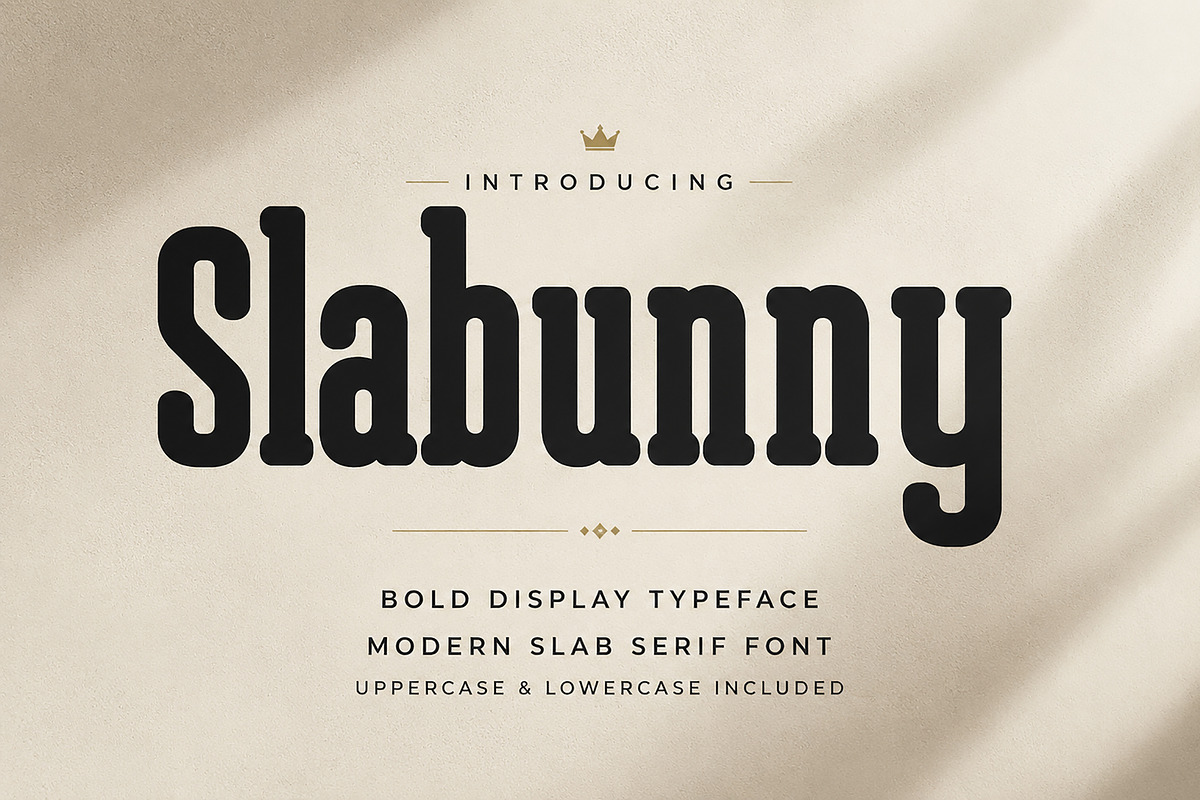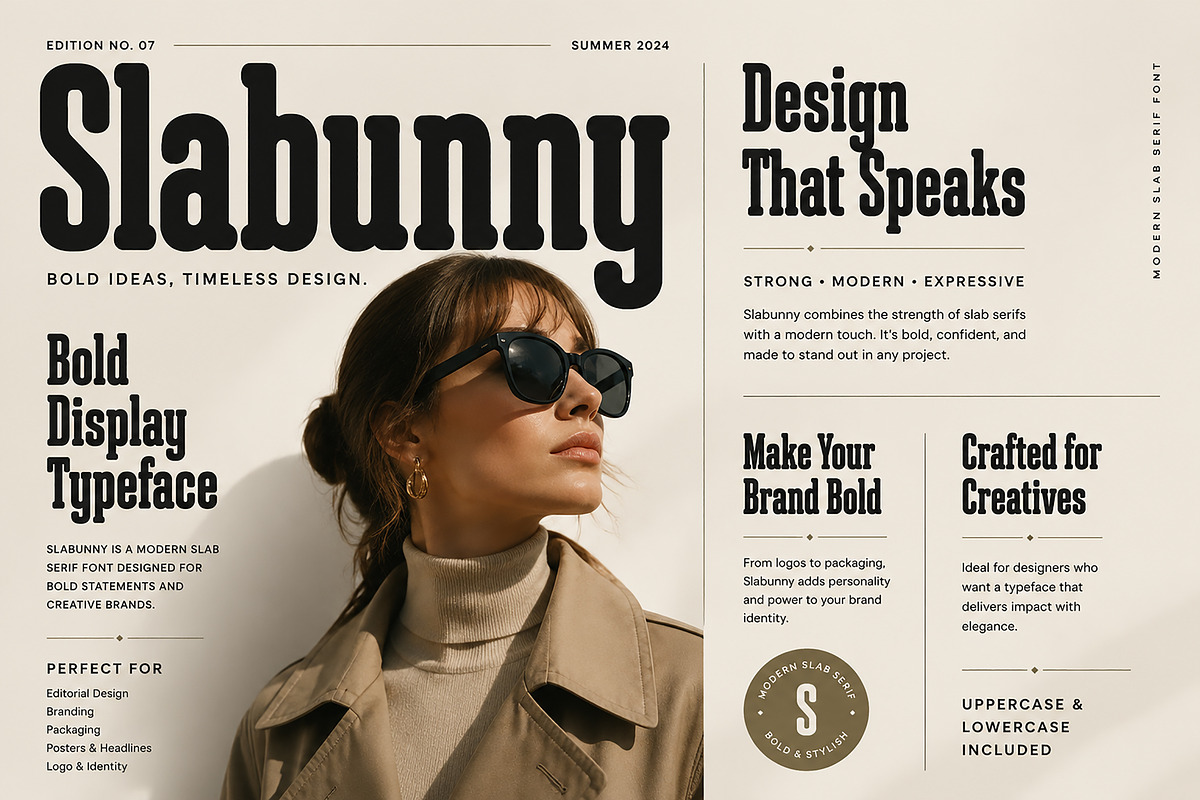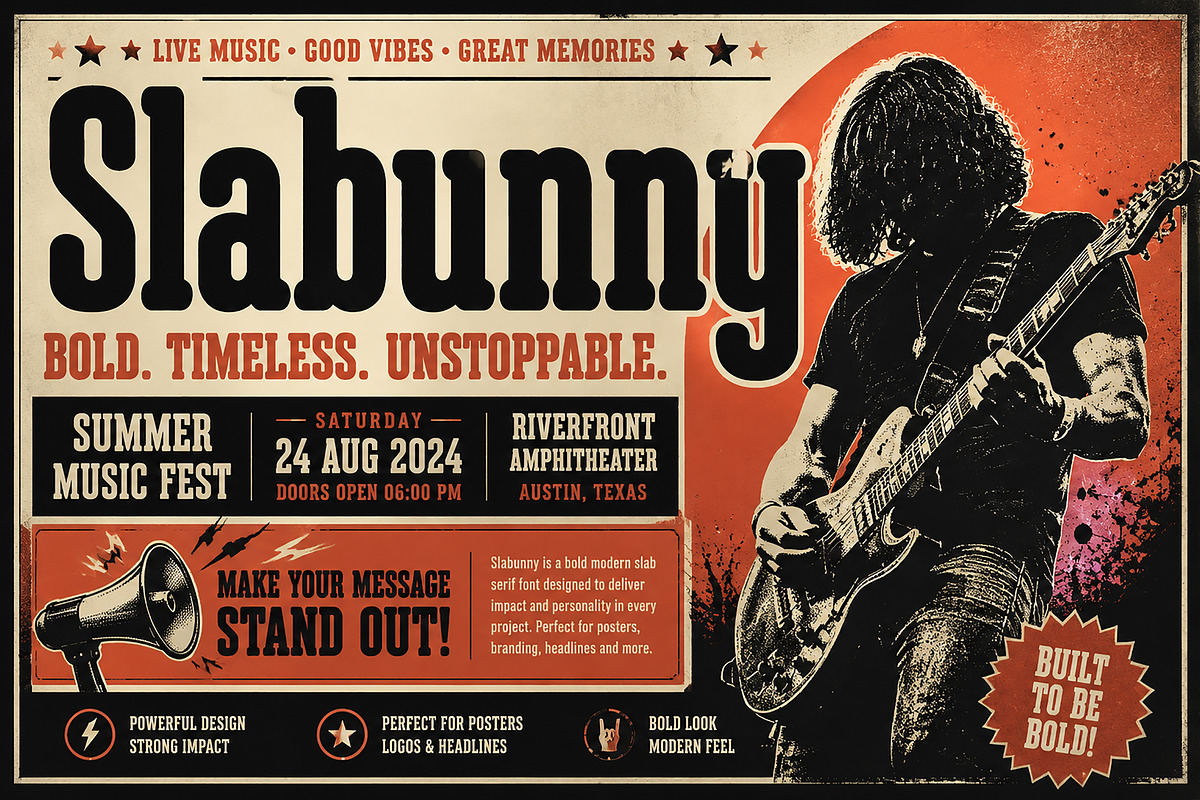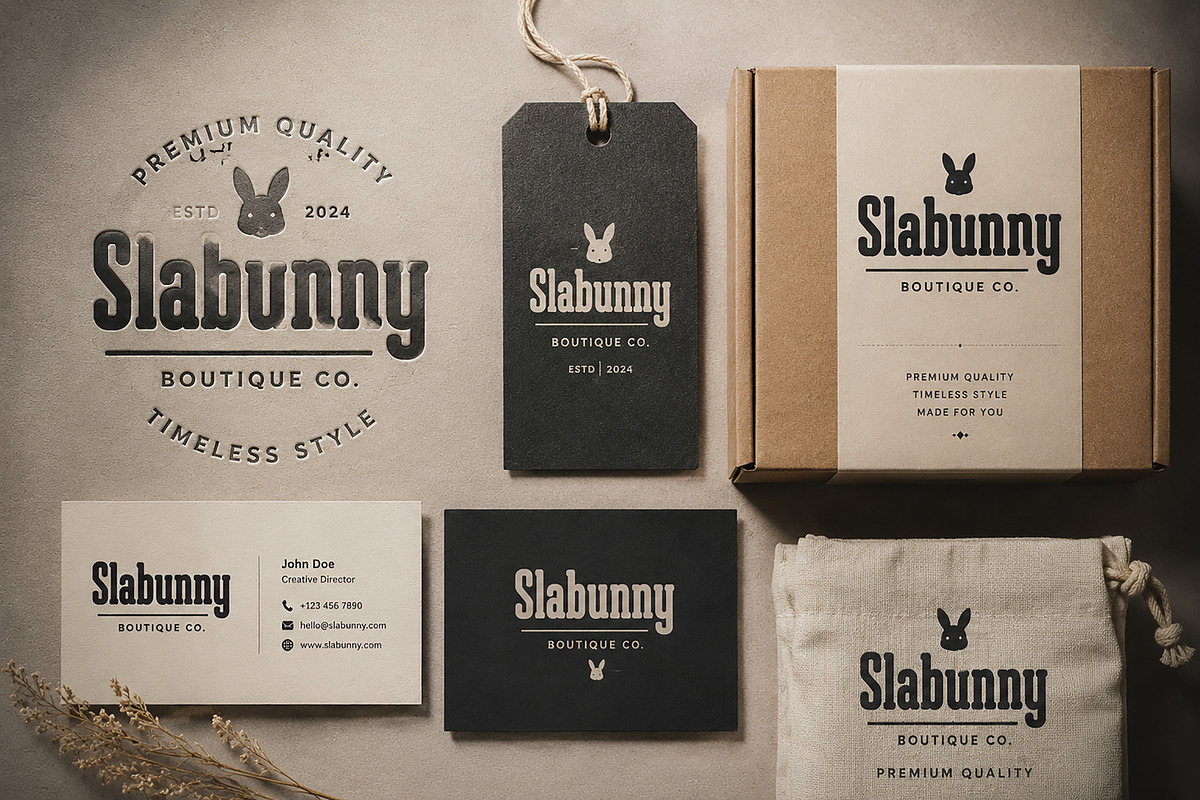
Slabunny
Slabunny – Bold Modern Slab Serif Display Font
Slabunny is a bold and stylish slab serif display font designed to bring a strong visual impact to your creative projects. Featuring thick strokes, rounded slab shapes, and a unique contemporary personality, Slabunny is perfect for designs that need a confident and memorable typographic style.
With its powerful display presence and excellent readability, Slabunny works beautifully for branding, logos, posters, packaging, editorial layouts, headlines, advertising, merchandise, and creative identity projects.
Designed for designers who love bold typography with a modern vintage touch, Slabunny adds character, strength, and premium style to every design.
• Logo Design
• Brand Identity
• Posters
• Packaging Design
• Magazine Headlines
• Editorial Design
• Advertising Campaigns
• Product Labels
• Social Media Graphics
• Merchandise Design
• Creative Projects
✔ Bold Slab Serif Display Style
✔ Strong & Unique Letter Shapes
✔ Modern Vintage Inspired Look
✔ High Impact Typography
✔ Uppercase & Lowercase Letters Included
✔ Numbers & Basic Punctuation Included
✔ Professional Display Font for Creative Use
Slabunny is the perfect choice for designers looking for a bold, stylish, and versatile display font that makes every headline stand out.